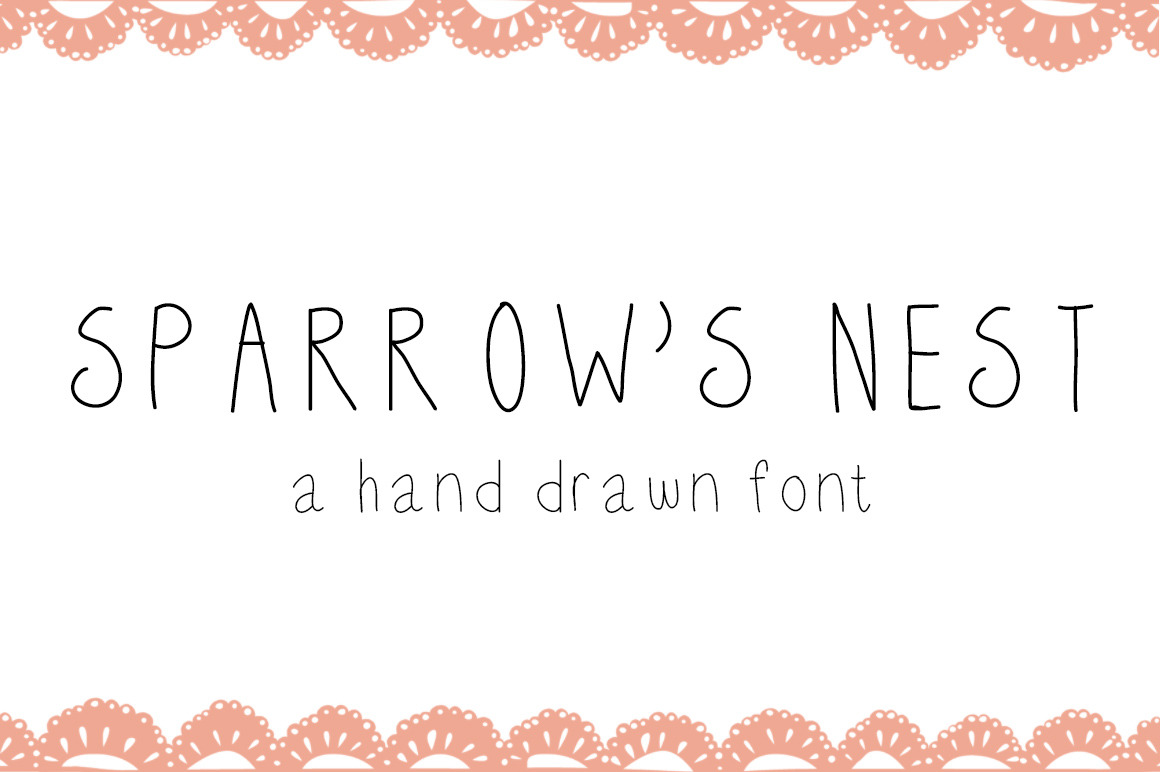
Sparrow's Nest Font
A computer generated hand drawn font from my handwriting, for your designing pleasure. Please note this font only supports English characters at this time.